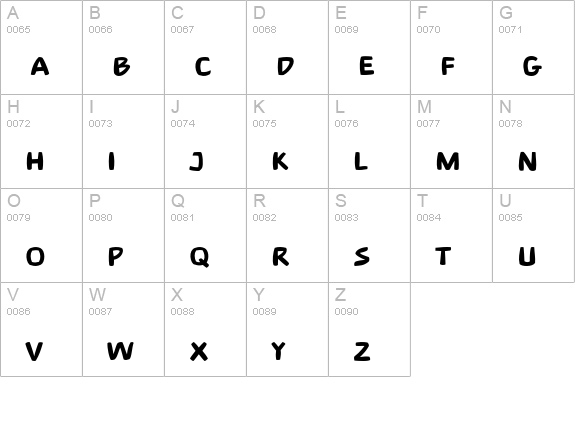
99-Text Font Details
99-Text font is a versatile and modern typeface that is perfect for a wide range of design projects. With its clean lines and contemporary style, this font is sure to make your text stand out. Whether you're working on a website, poster, or logo, 99-Text font will add a touch of sophistication and professionalism to your work. The best part? This font is completely free to download at FontsMarket.com. That's right, you can get your hands on this high-quality font without spending a dime. So why wait? Download 99-Text font today and take your designs to the next level.